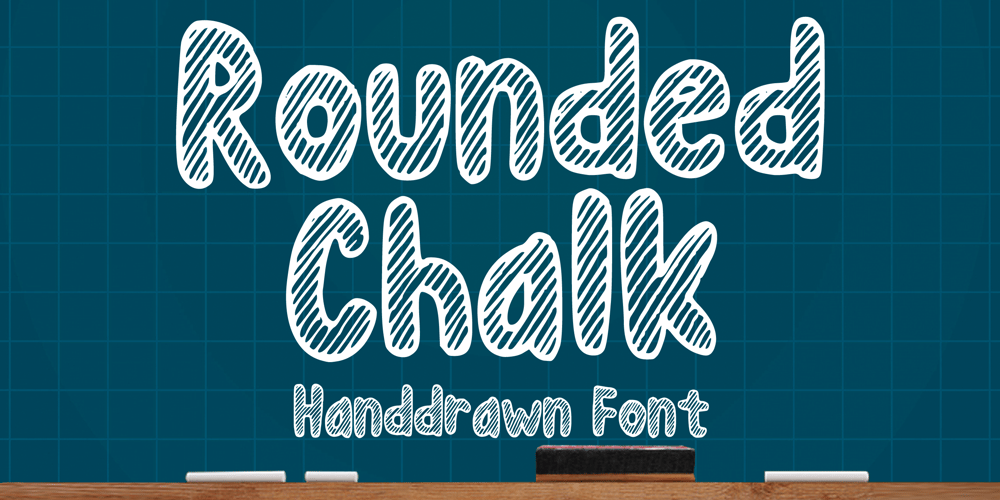
Rounded Chalk Font Family was designed by Gabriel Valentinus and published by Mvmet. Rounded Chalk contains 1 styles and family package options. Rounded Chalk is a fun and playful handwritten, chalk textured font that you can use for all chalkboard quotes or teaching material! Its authentic look will add a personal and realistic feel to your designs. It works great for creating cool designs that scream for attention. It’s ideal for anything ranging from t-shirts, book designs, restaurant menus, blog writing, and greeting cards to stickers, or anything that needs a casual touch. Fall in love with its incredibly cool style, and use it to create lovely designs!